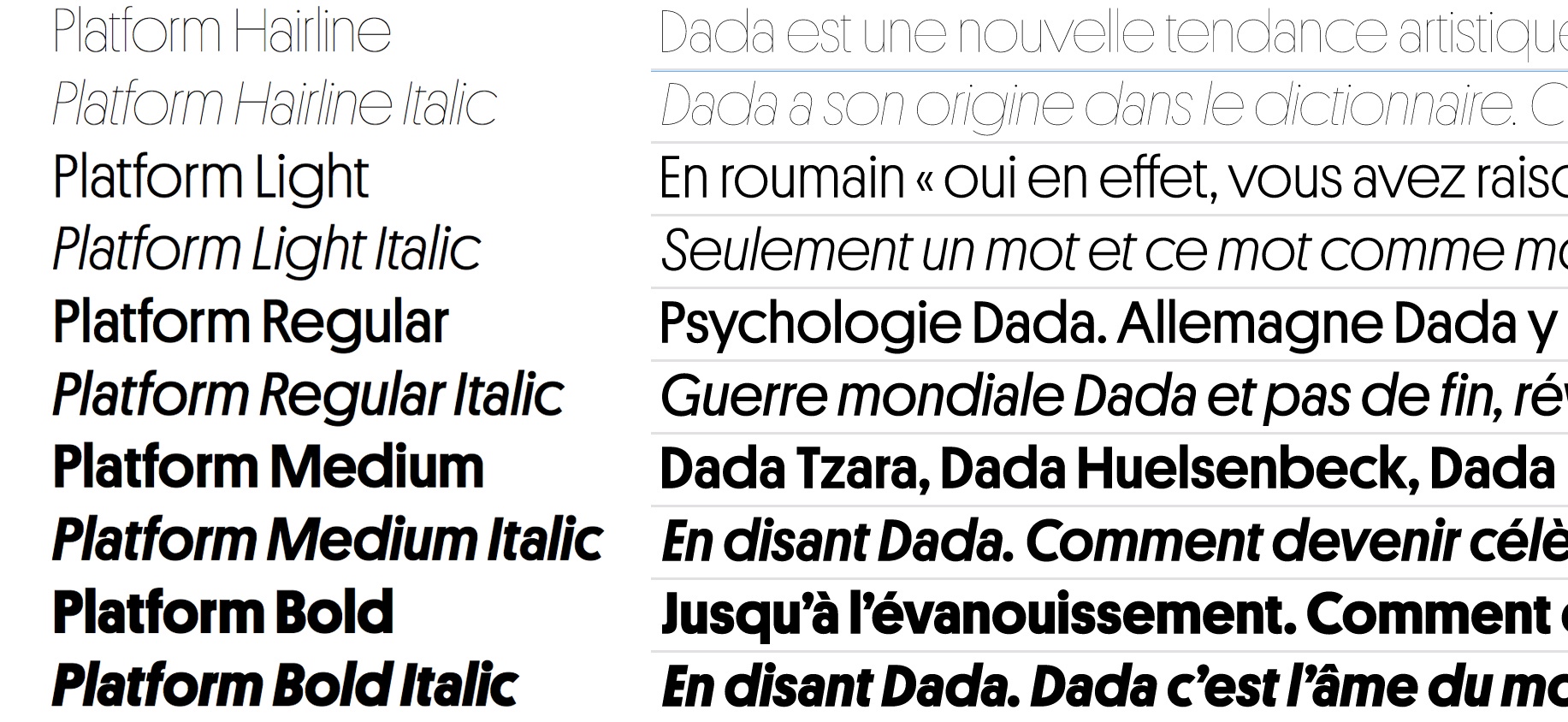
Platform Font
Platform Font is perfect for tech startup branding, digital platform interfaces, modern web design, innovative app development, contemporary corporate identities, progressive marketing materials, cutting-edge presentations, dynamic social media graphics, forward-thinking business communications, and next-generation digital experiences.
What makes Platform Font so exciting is its foundational strength that provides the perfect base for building exceptional digital experiences while maintaining scalable versatility and professional reliability. This structural typeface embodies platform stability and technological innovation, creating typography that serves as the solid foundation for ambitious digital projects and contemporary brand systems.
The Platform Font family includes thin, light, regular, medium, bold, and black weights, complete with matching italics and platform-optimized design features that provide designers with comprehensive tools for creating scalable and memorable typography that builds strong digital foundations and supports diverse platform requirements.
The systematically designed letterforms of Platform Font showcase structural elegance with platform character that creates instant recognition of technological reliability and digital sophistication. Each character displays meticulous attention to maintaining the foundational strength that defines platform stability while ensuring superior scalability and professional versatility. The font's platform construction and systematic spacing contribute to its reliable appearance and technological appeal.
Technology companies and platform-based organizations consistently choose Platform Font for projects requiring foundational strength and digital sophistication. The comprehensive character set includes uppercase and lowercase letters, numerals, extensive punctuation, international accents, and platform-optimized elements that provide complete support for digital branding applications and technology-focused design compositions.
The scalable versatility of Platform Font ensures exceptional performance across all digital platforms and emerging technologies. Whether developing platform brand identities, creating technology marketing campaigns, or designing digital interface systems, this remarkable typeface delivers consistent reliability that resonates with audiences seeking technological innovation and platform-based solutions.